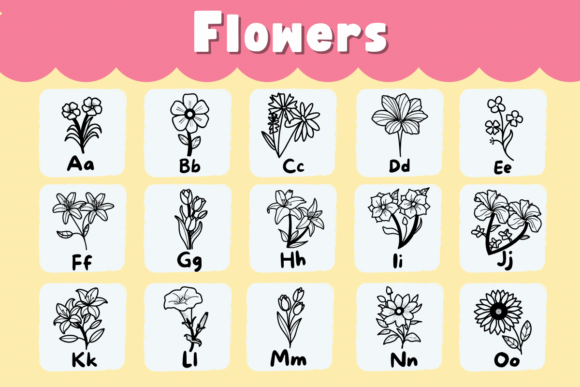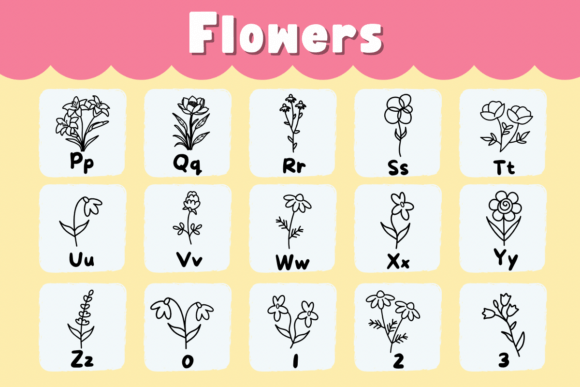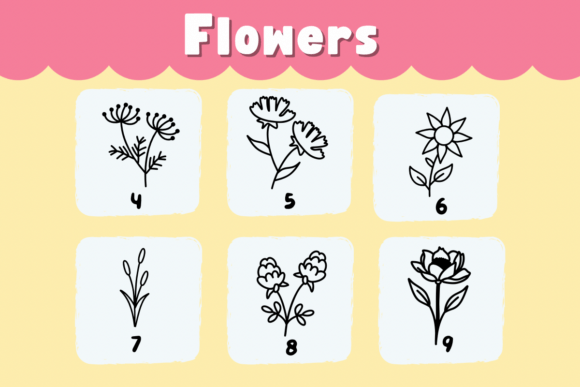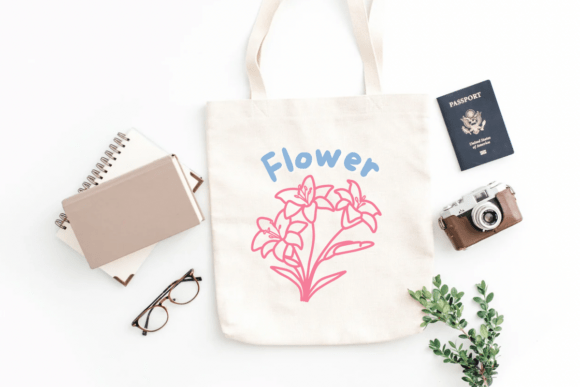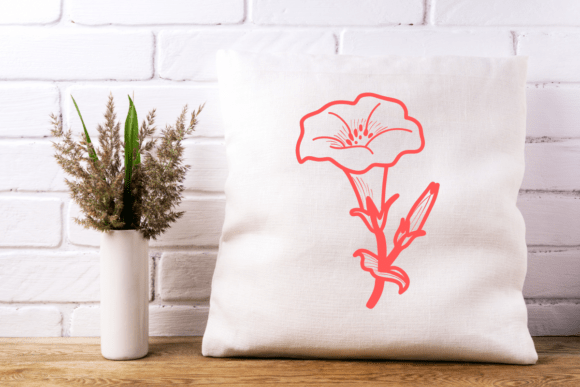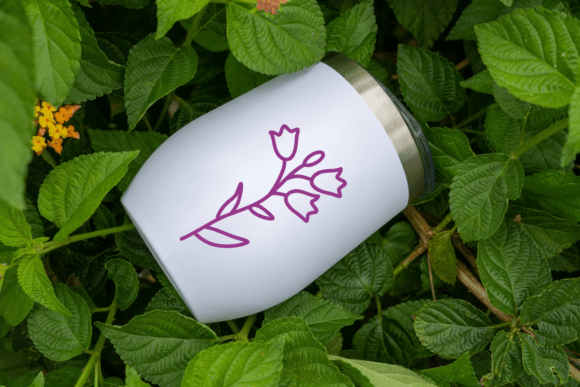
The Blossoming Beauty of Flowers Font
I’ll never forget the time I was working on a wedding invitation project, and my client asked for a custom floral design that would make their guests swoon. I scoured the internet for the perfect font, but nothing seemed quite right. That was until I stumbled upon the enchanting Flowers Dingbats Font. It was love at first sight! 💐
This delightful floral element collection in dingbat style features a variety of hand-drawn flower illustrations that instantly elevated my design game. With Flowers Font, I could simply type a letter and get a beautifully detailed flower – effortless elegance in every keystroke. In this article, I’ll share my experience with this gorgeous font, its features, and how to make the most of it in your designs.
- ✨ Beautifully hand-drawn flower illustrations that add a touch of whimsy to any design
- ✅ Easy to use: simply type a letter and get a gorgeous flower
- 🎨 Versatile: perfect for craft projects, greeting cards, invitations, packaging designs, and scrapbooking
- 🌼 Delightful details: each flower illustration is meticulously crafted to bring a sense of elegance to your designs
While Flowers Font is a stunning addition to any design project, there are a few things to keep in mind:
- ⚠️ Limited character set: as a dingbat font, it’s designed for specific characters, so you might need to get creative with your text
The Story Behind Flowers Font
Legend has it that the creator of Flowers Font, a talented designer with a passion for florals, was inspired by a trip to a local botanical garden. Enchanted by the beauty of the flowers, she spent hours sketching and photographing her favorite blooms. This experience sparked the idea for Flowers Font, which has since become a beloved tool for designers and crafters around the world.